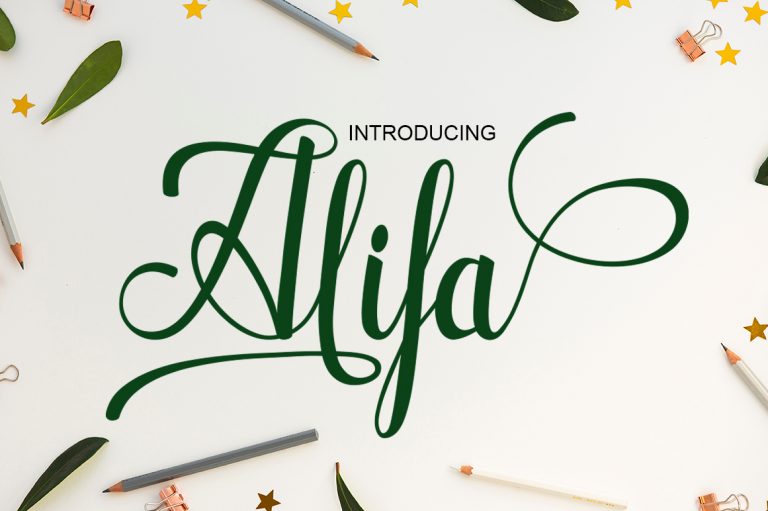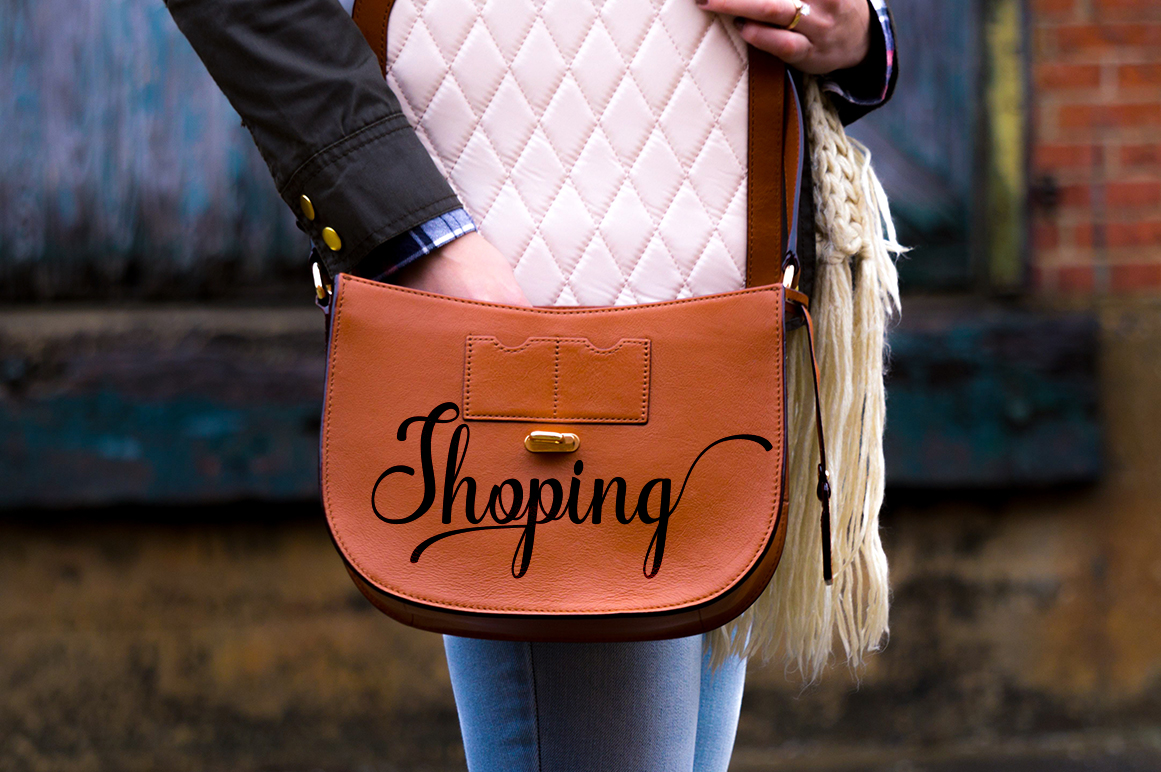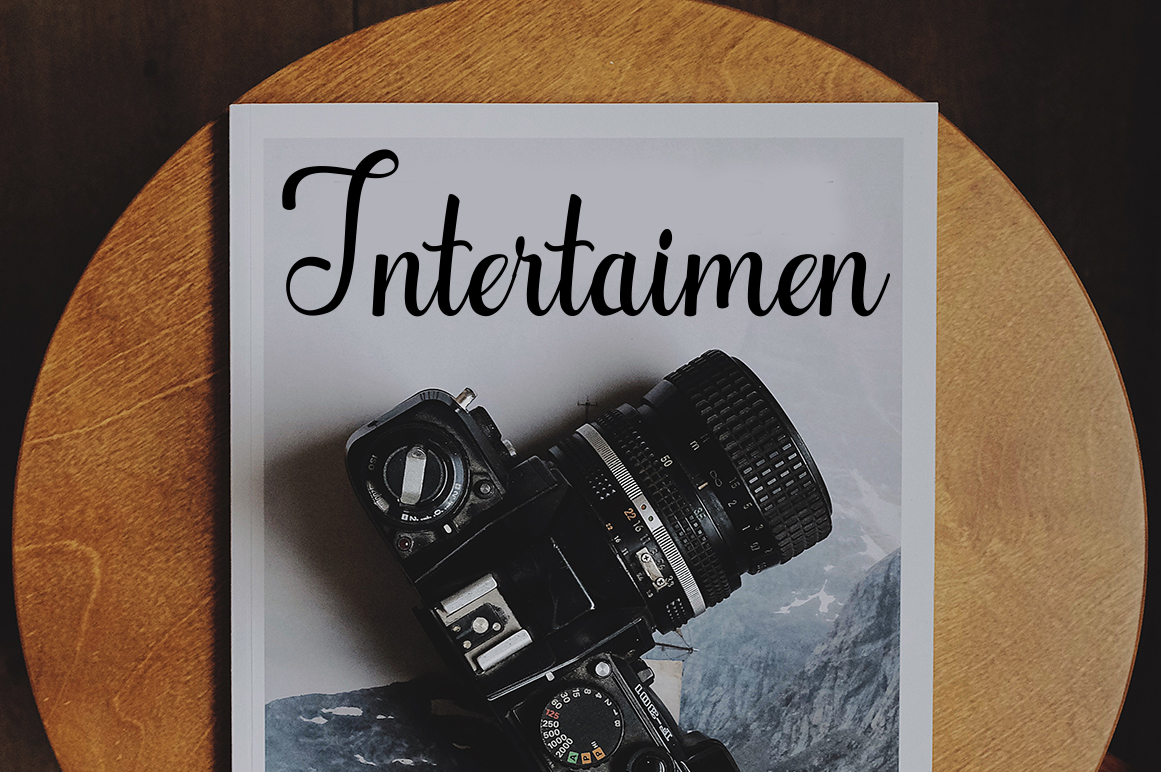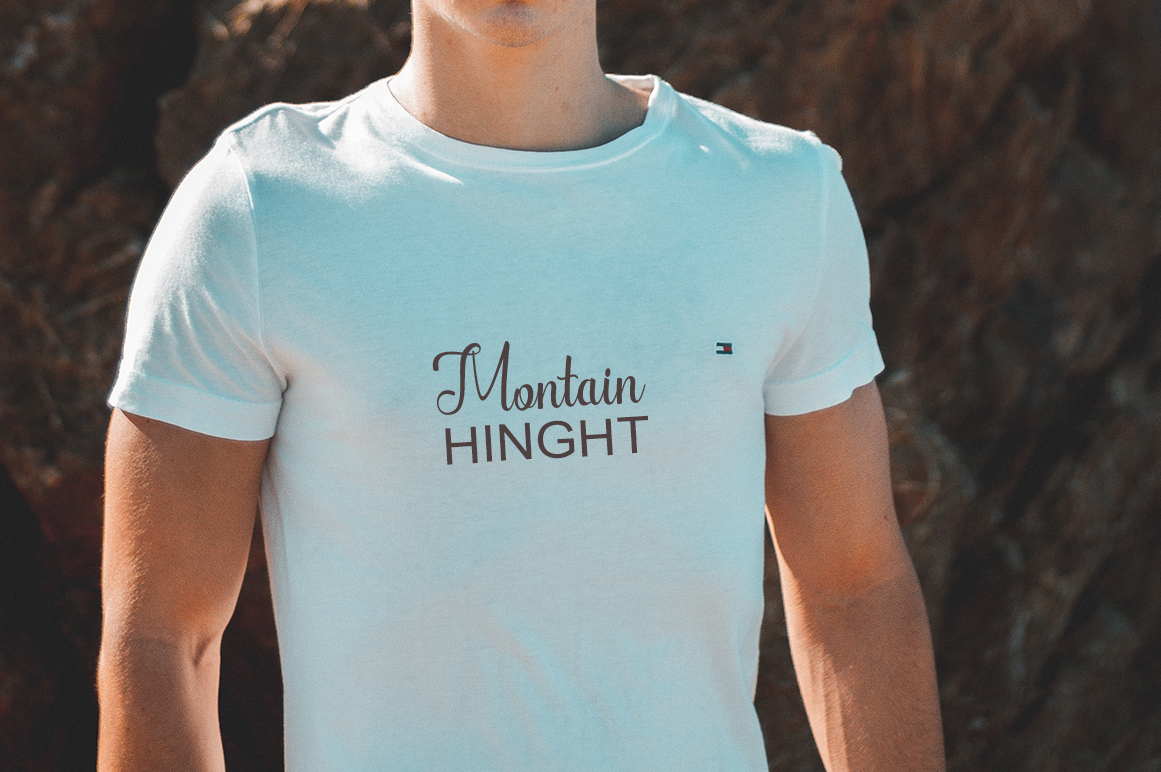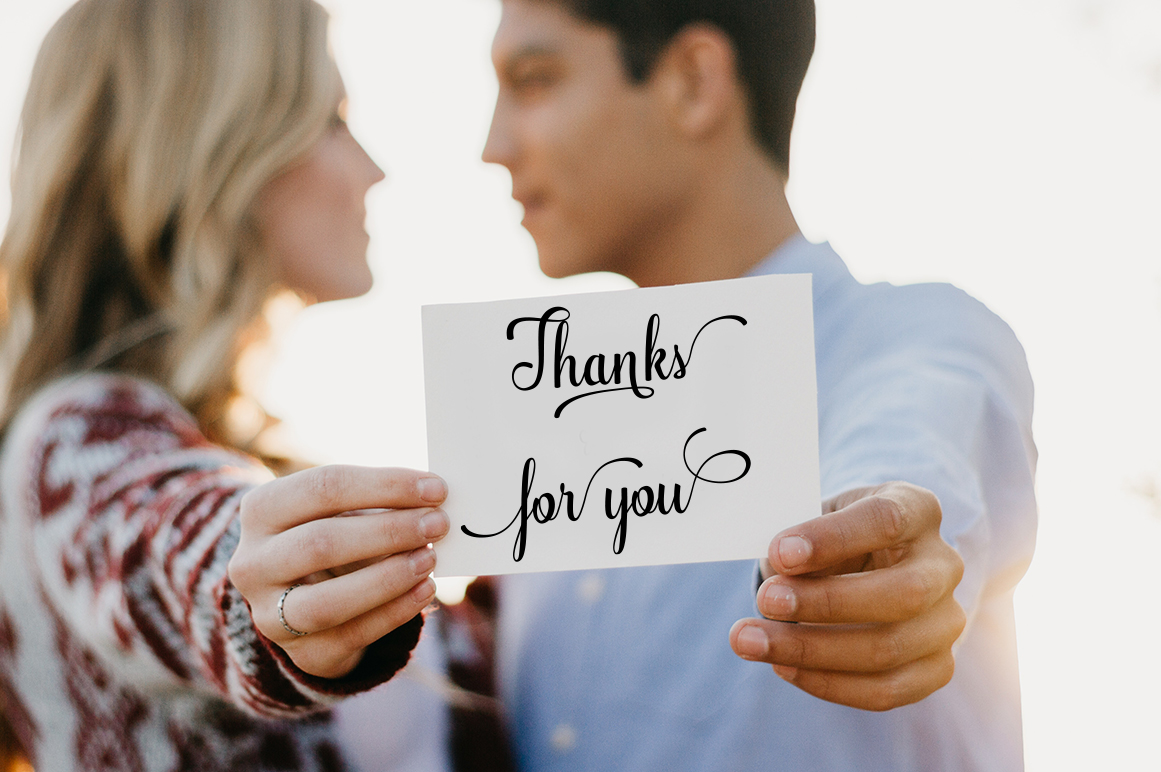
Alifa Script Font
Reula maulina Script New fresh & modern style with handmade calligraphy, decorative characters and dancing lineage! So wonderful are invitations like greeting cards, branding material, business cards, quotes, posters, and more !!